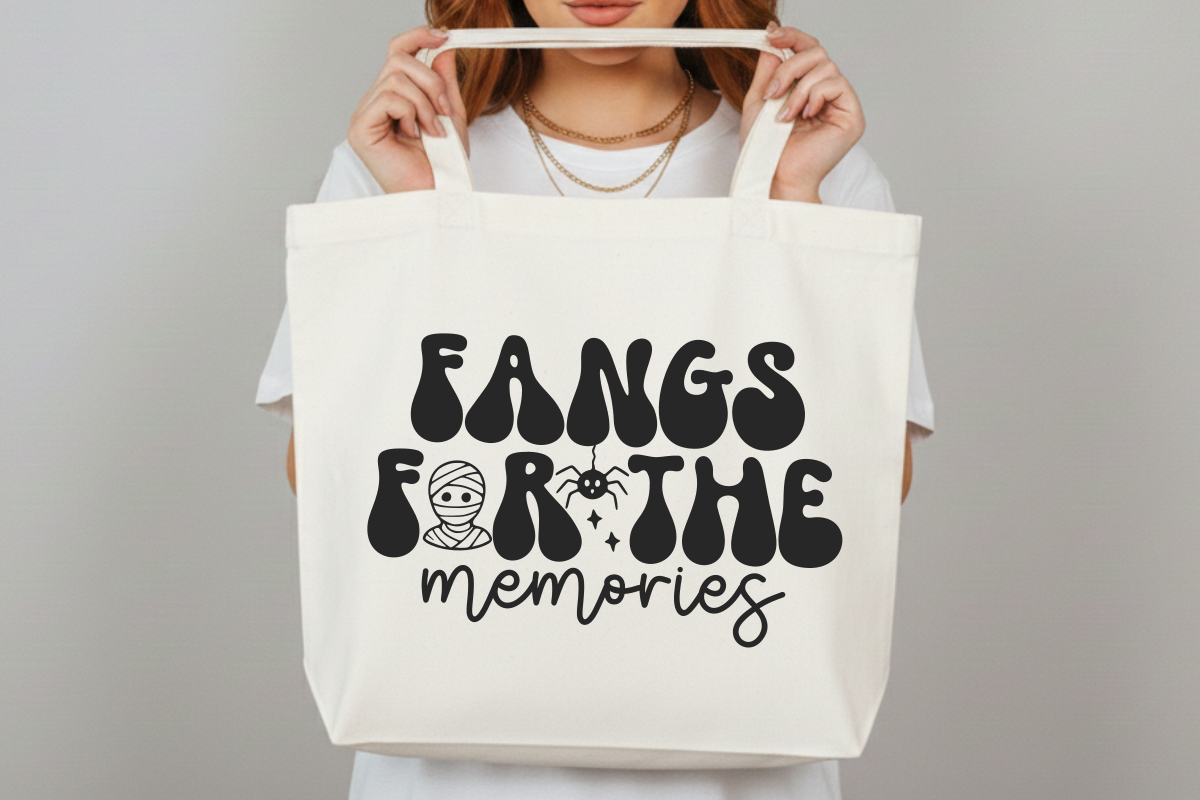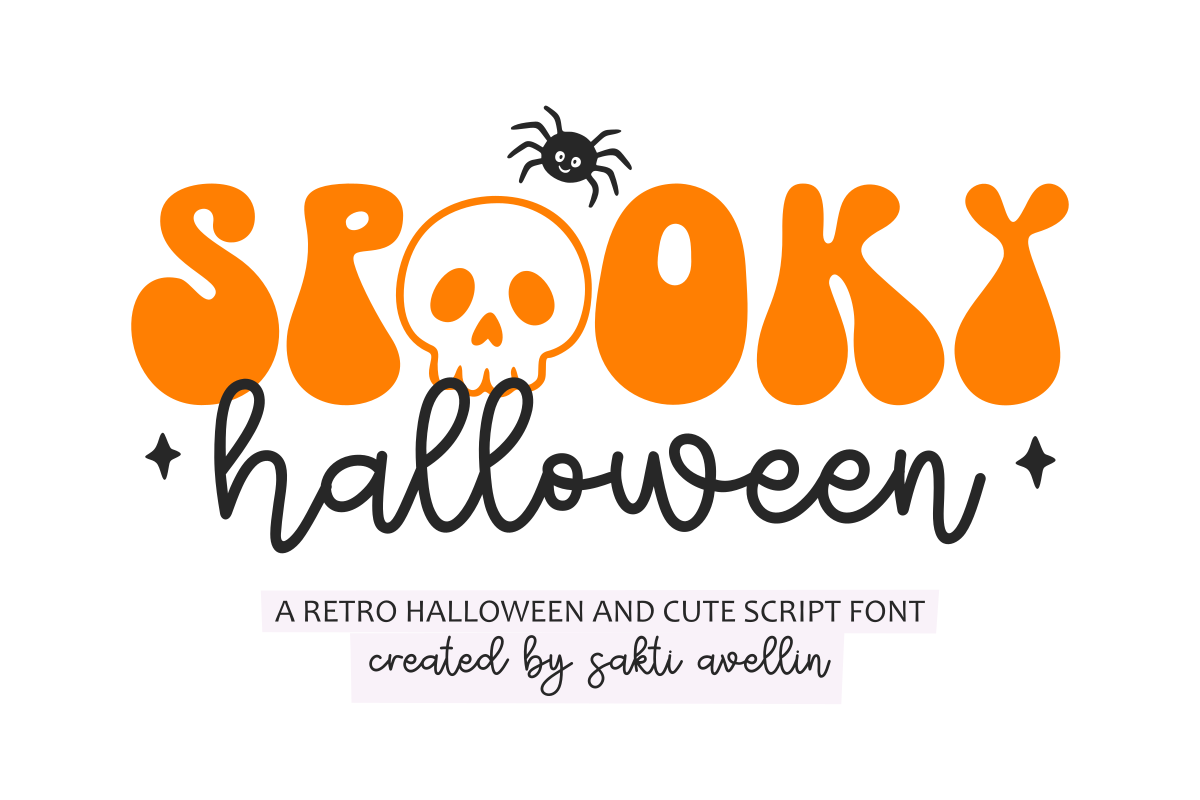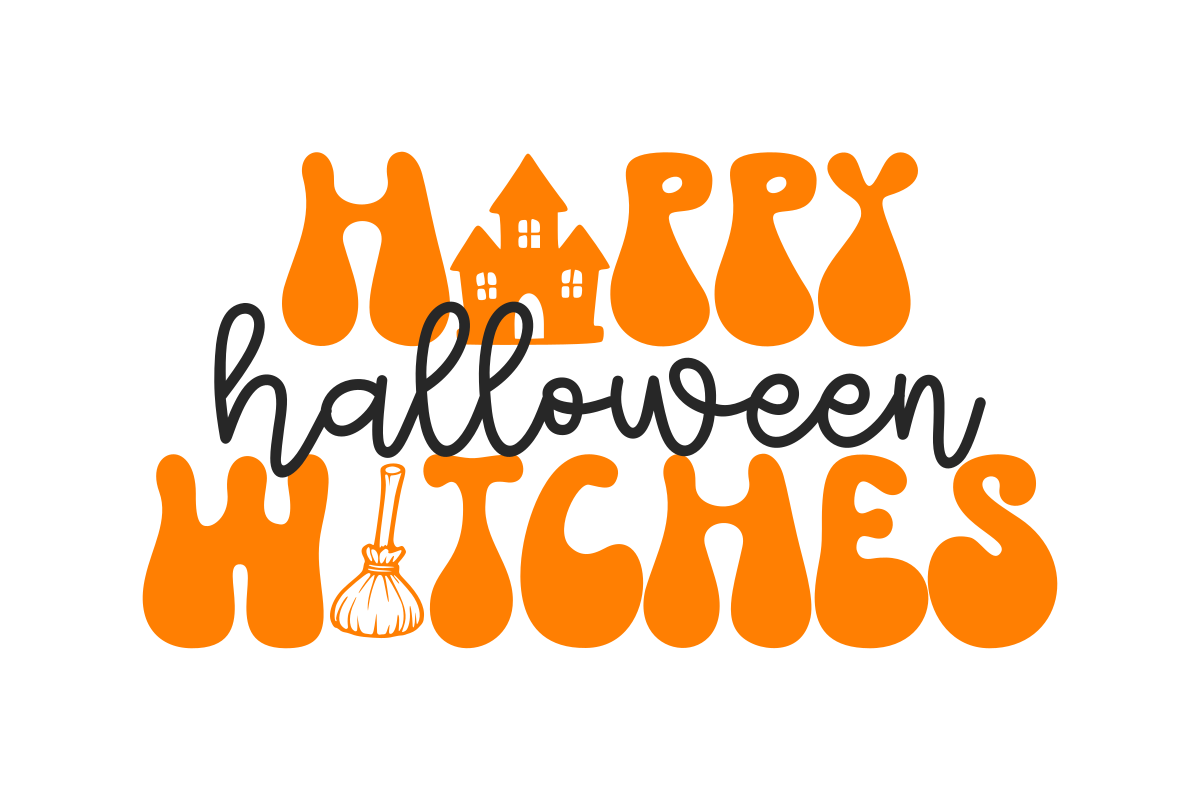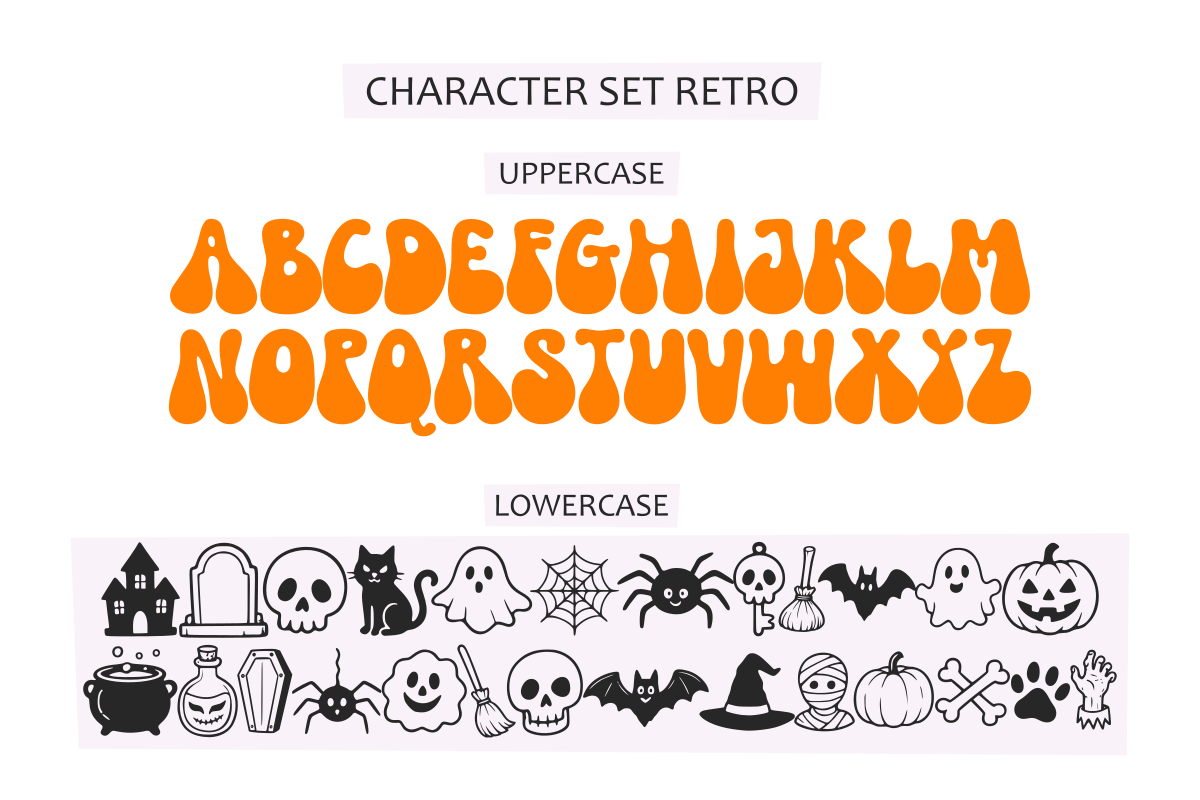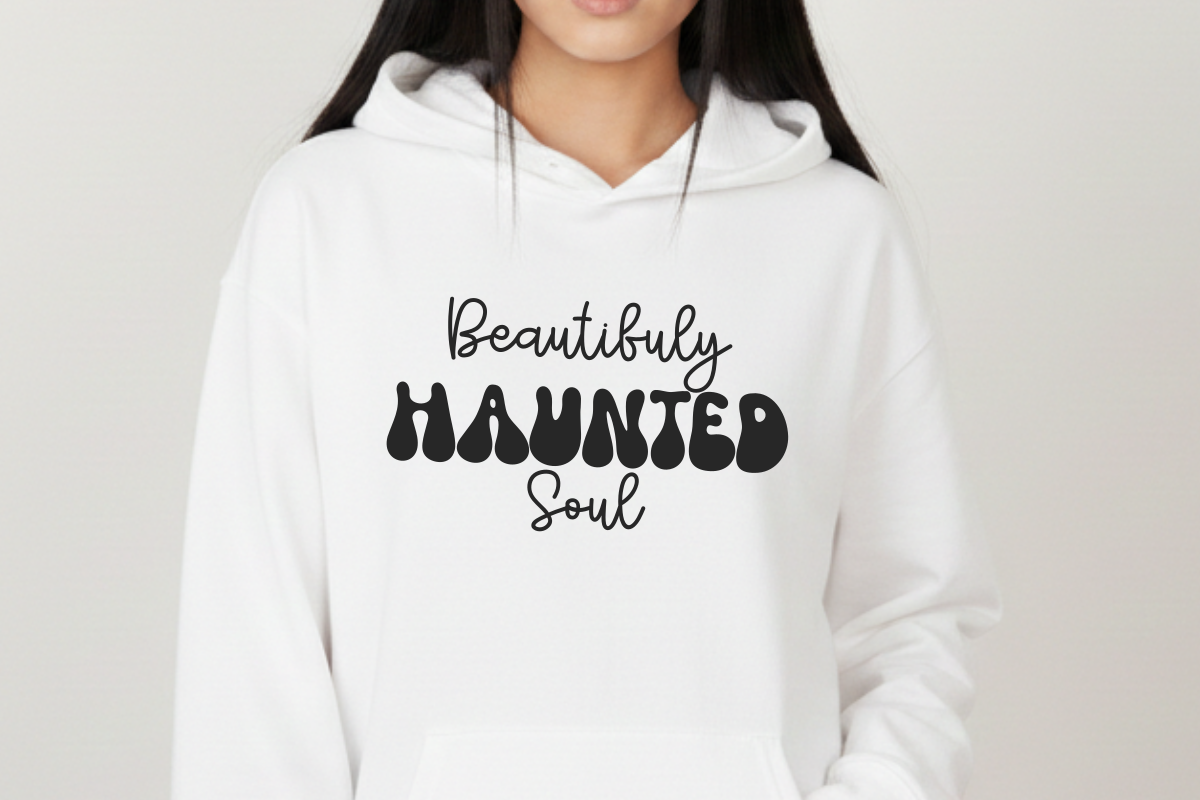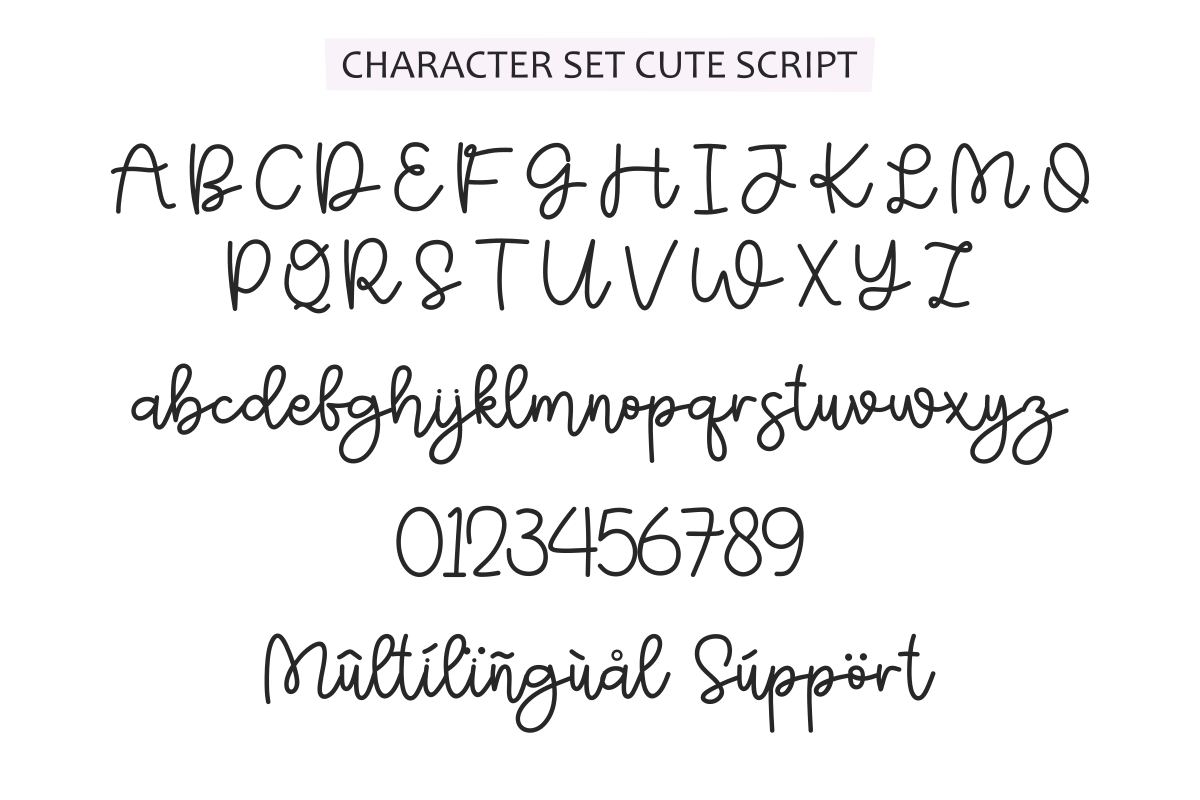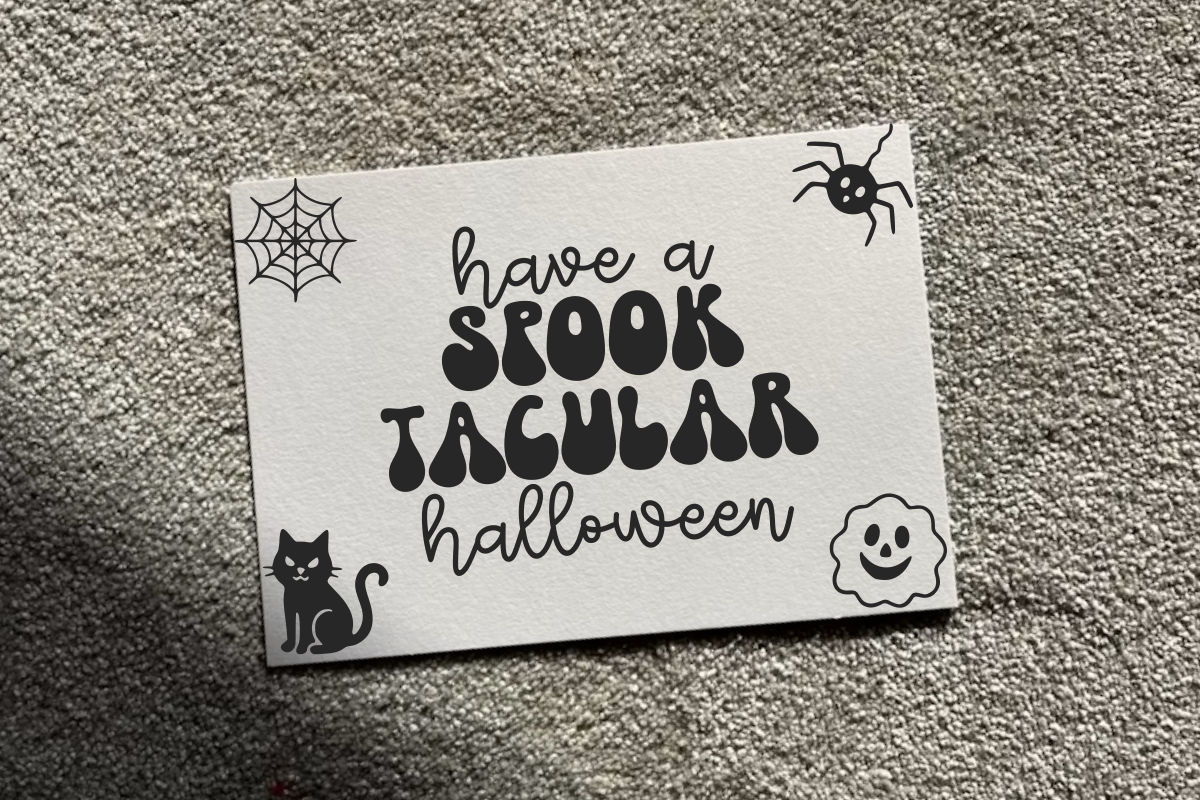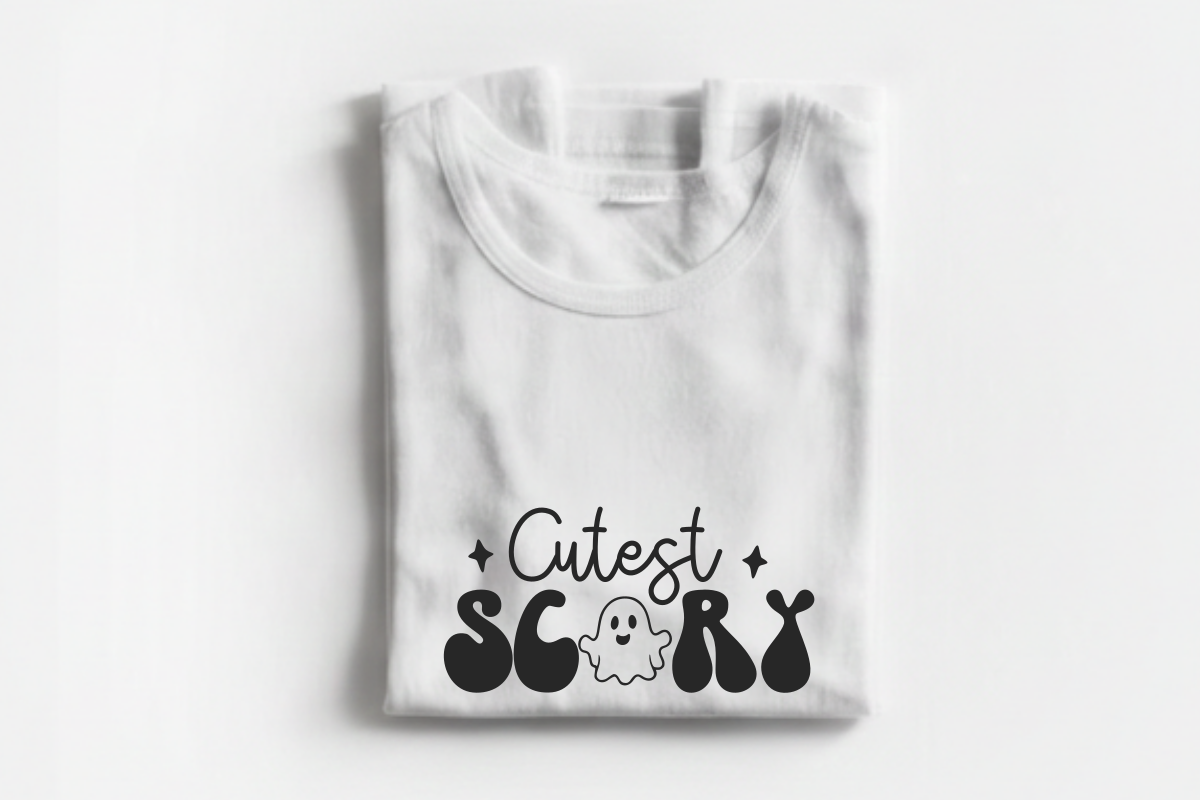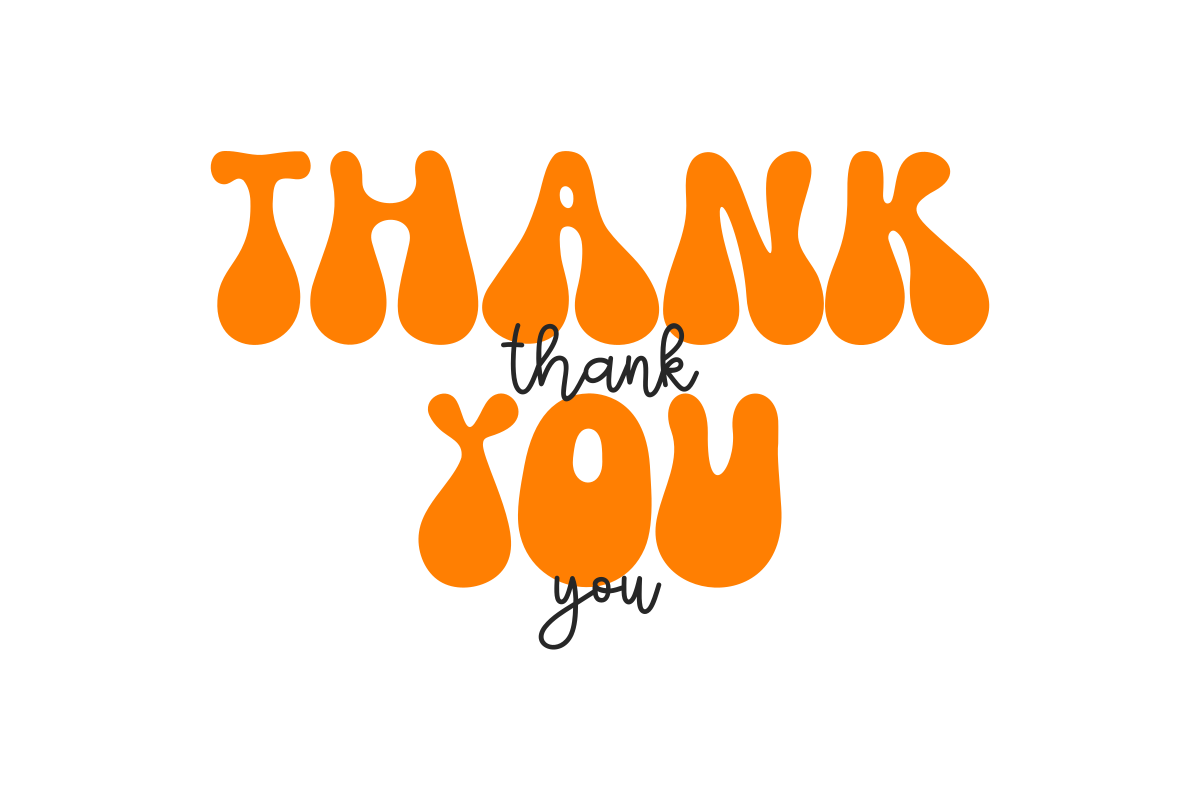
Spooky Halloween - Cute Script Font
Spooky Halloween is an engaging and festive retro halloween and cute script font designed to bring a playful, seasonal vibe to your creative projects. This charming pairing features a bold, groovy display typeface for "SPOOKY" and a smooth, flowing handwritten script for "halloween," making it an ideal choice for Halloween branding, spooky-cute party invitations, stickers, children's products, and cheerful social media graphics. Its balanced and organic aesthetic ensures your designs feel warm, fun, and full of personality. Whether you are creating festive packaging, apparel, or whimsical stationery, Spooky Halloween adds a charming touch to every design.